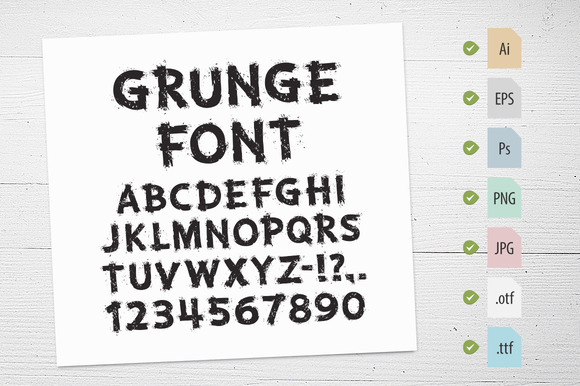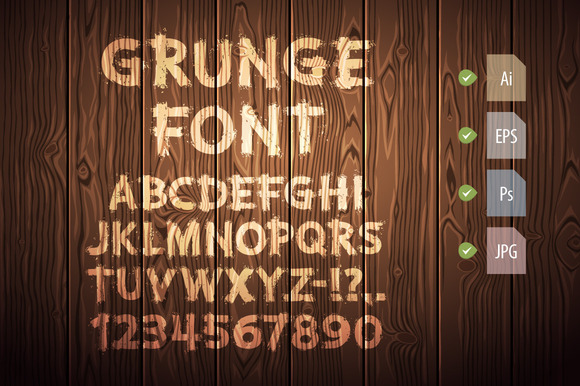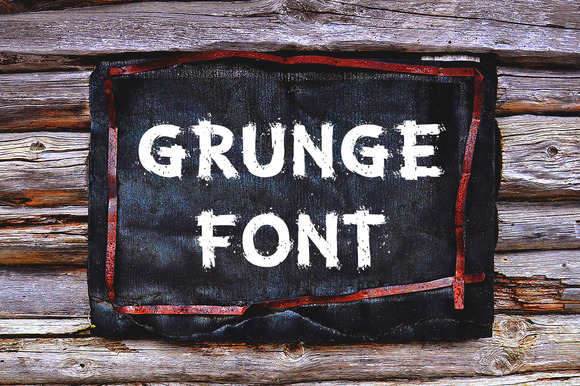
Grunge Font: A Comprehensive Guide for Designers and Crafters
Are you a designer or crafter looking for a unique and edgy font to add to your collection? Look no further than the Grunge Font. This versatile font is perfect for a variety of design projects, from DIY crafts to professional branding. In this article, we’ll take a closer look at the Grunge Font, its features, and how you can use it to elevate your designs.
What is Grunge Font?
Grunge Font is a bold, distressed font that captures the essence of the grunge movement. Its rough, textured appearance gives it a raw, edgy feel that’s perfect for designs that need a bit of attitude. Whether you’re creating a logo, poster, or social media graphic, the Grunge Font is sure to make a statement.
Features of Grunge Font
Please note that this font does not include lowercase symbols, so be sure to plan your design accordingly.
Uses for Grunge Font
The Grunge Font is incredibly versatile, and can be used for a wide range of design projects. Here are a few ideas to get you started:
- Branding and logos: The Grunge Font is perfect for creating bold, eye-catching logos that make a statement.
- Posters and flyers: Add a touch of grunge attitude to your posters and flyers with this edgy font.
- Social media graphics: Use the Grunge Font to create bold, attention-grabbing social media graphics that stand out from the crowd.
- DIY crafts: The Grunge Font is perfect for crafters who want to add a personal touch to their projects.
Tips for Using Grunge Font
Here are a few tips to keep in mind when using the Grunge Font:
- Use it sparingly: The Grunge Font is bold and attention-grabbing, so use it sparingly to avoid overwhelming your design.
- Pair it with a simple font: Balance out the boldness of the Grunge Font by pairing it with a simple, clean font.
- Experiment with colors: The Grunge Font looks great in bold, bright colors, so don’t be afraid to experiment.
The Grunge Font is a versatile, edgy font that’s perfect for designers and crafters who want to add a bit of attitude to their designs. With its comprehensive design package and bold, distressed appearance, it’s sure to make a statement in any design project. Whether you’re creating a logo, poster, or social media graphic, the Grunge Font is a great choice.